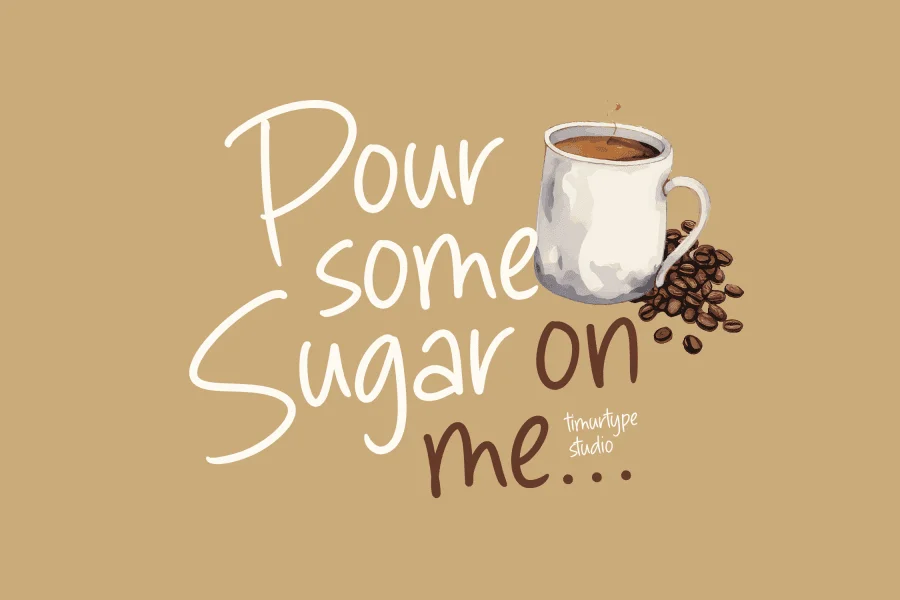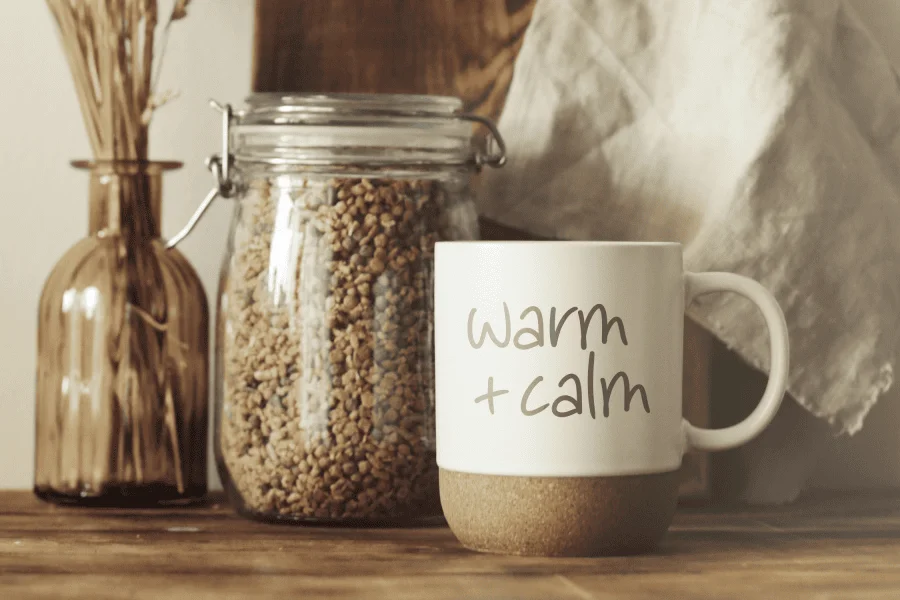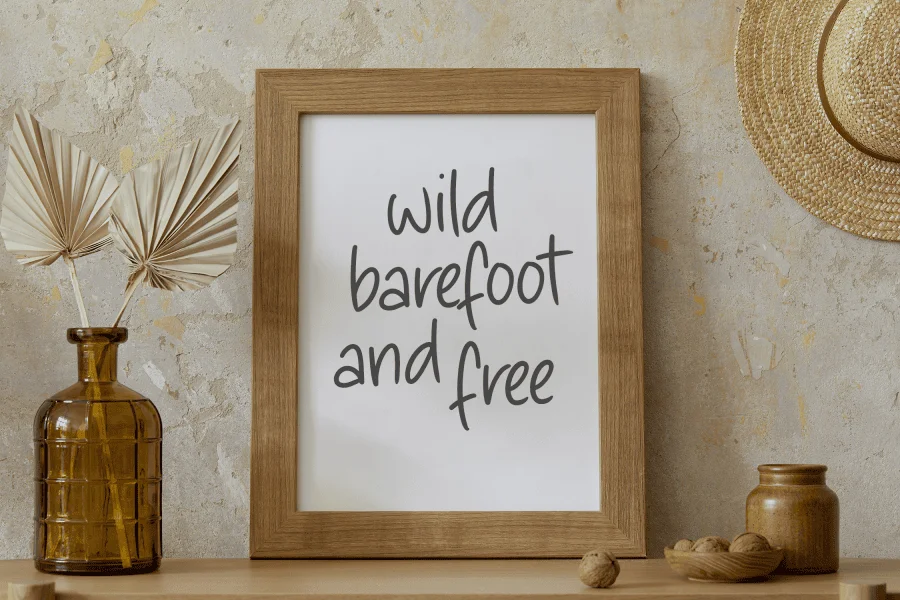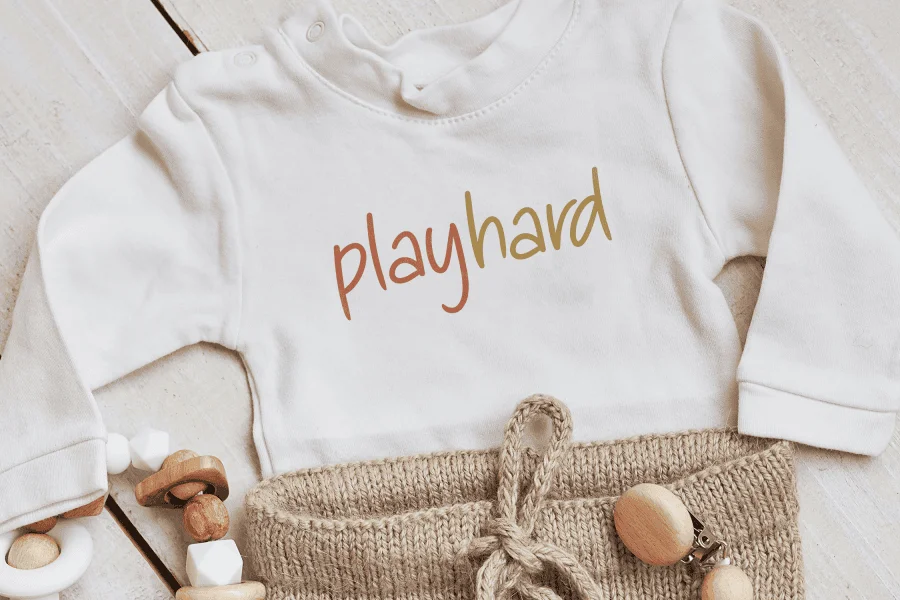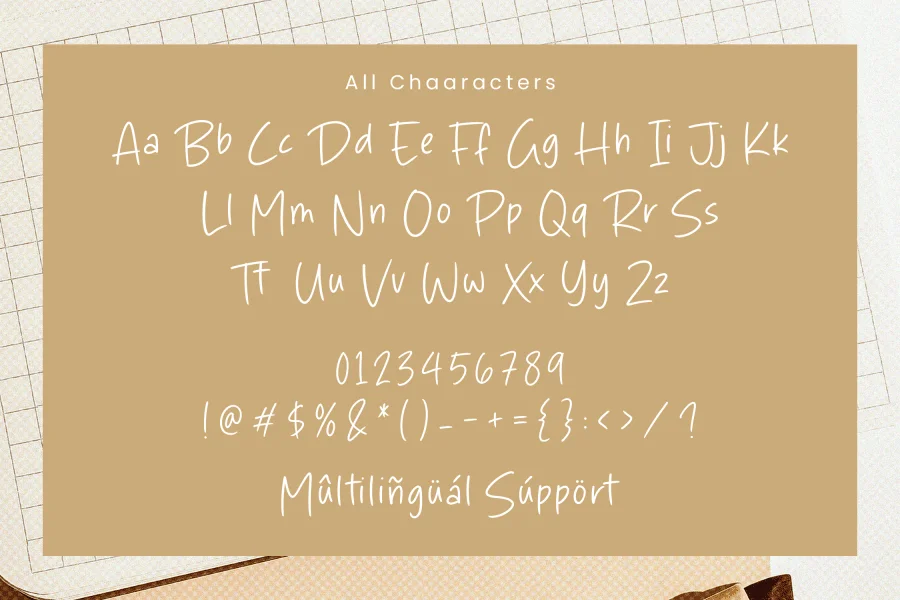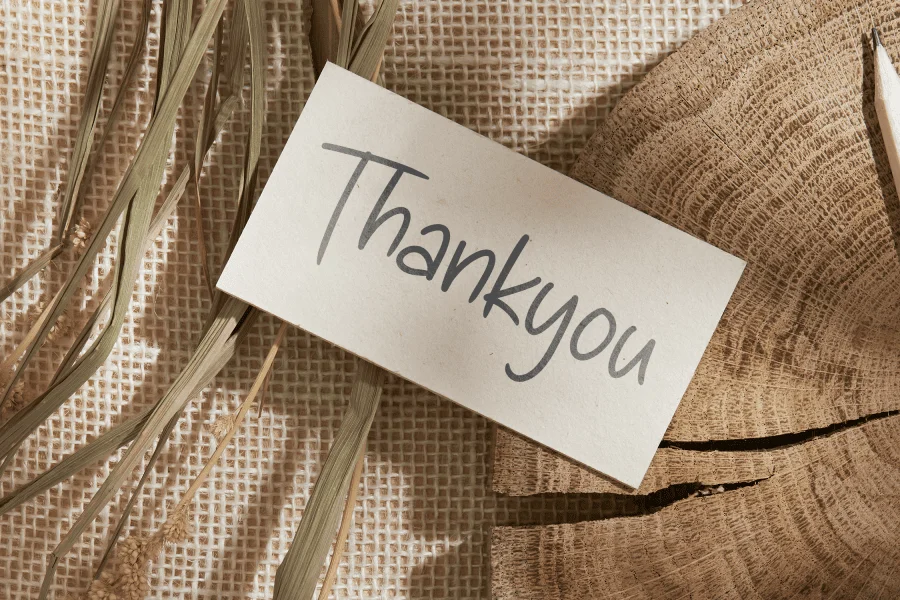
Simple Nathalie is a Cute Handwritten Font
This font is a charming and playful choice for your design projects. With its soft and delicate letterforms, this font brings a touch of cuteness and innocence. The graceful and fluid strokes give the Simple Nathalie font a gentle and approachable aesthetic, perfect for adding a sweet and friendly touch to your branding materials, greeting cards, and children's books. Whether you're aiming for a whimsical and romantic feel or a fun and cozy vibe, the Simple Nathalie font offers versatility and warmth. Embrace the cute energy of the Simple Nathalie handwritten font and give your designs a delightful and endearing personality
Simple Nathalie Font also supports multilingualism